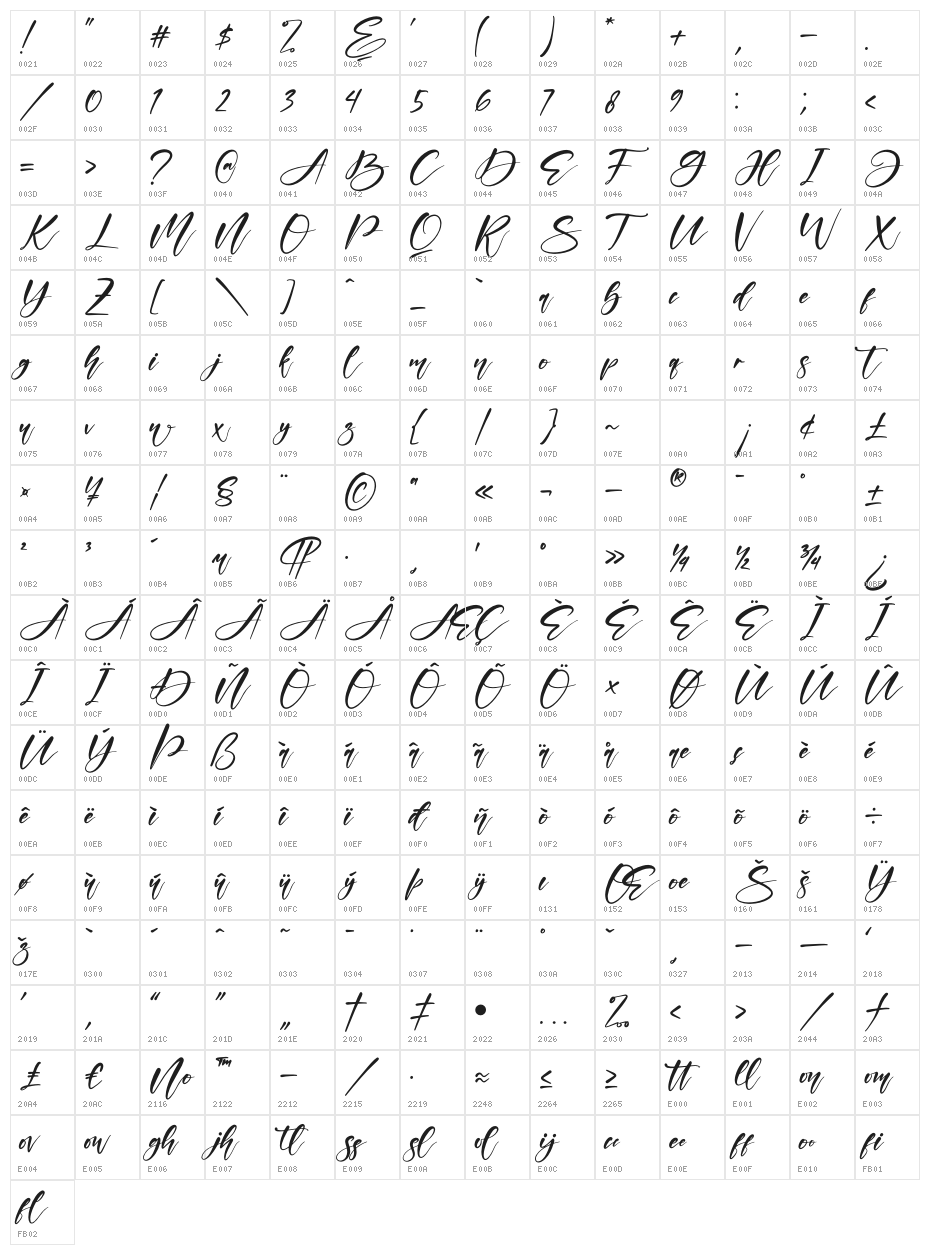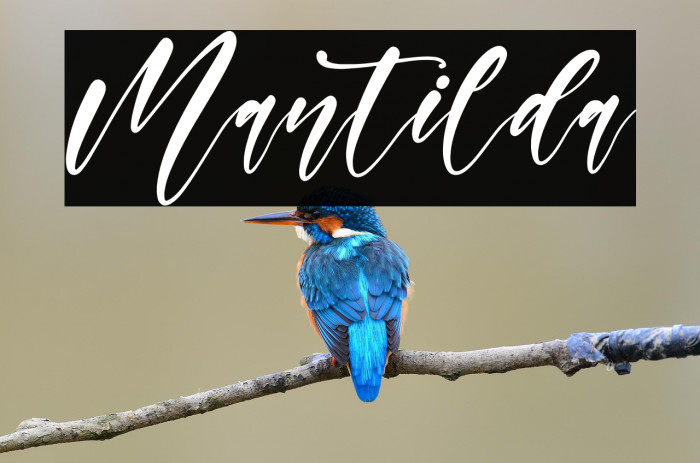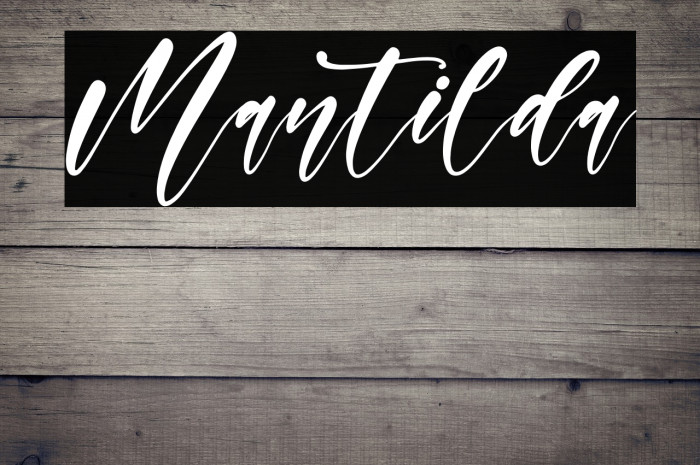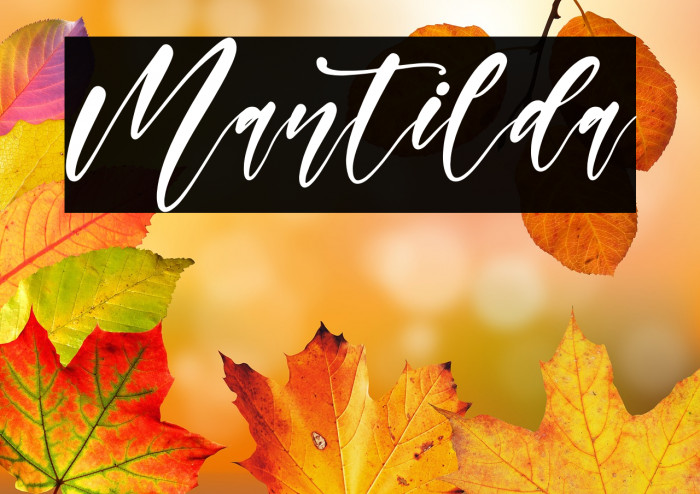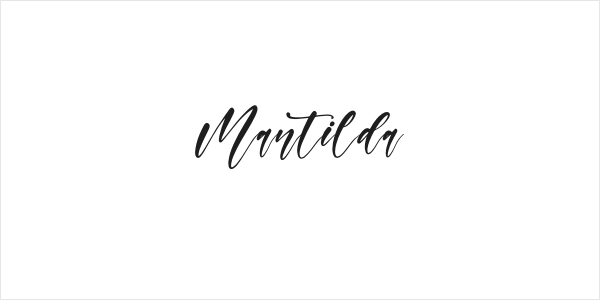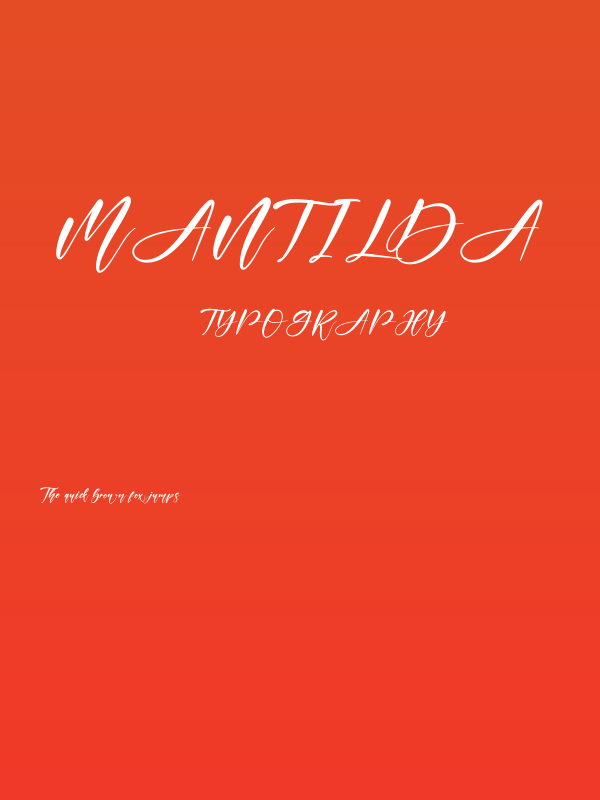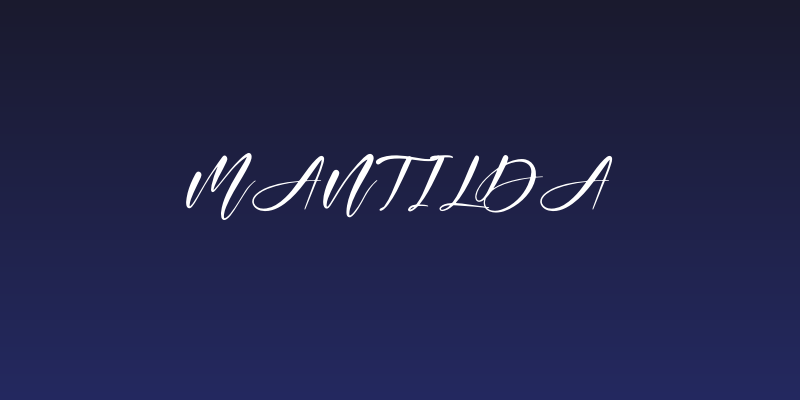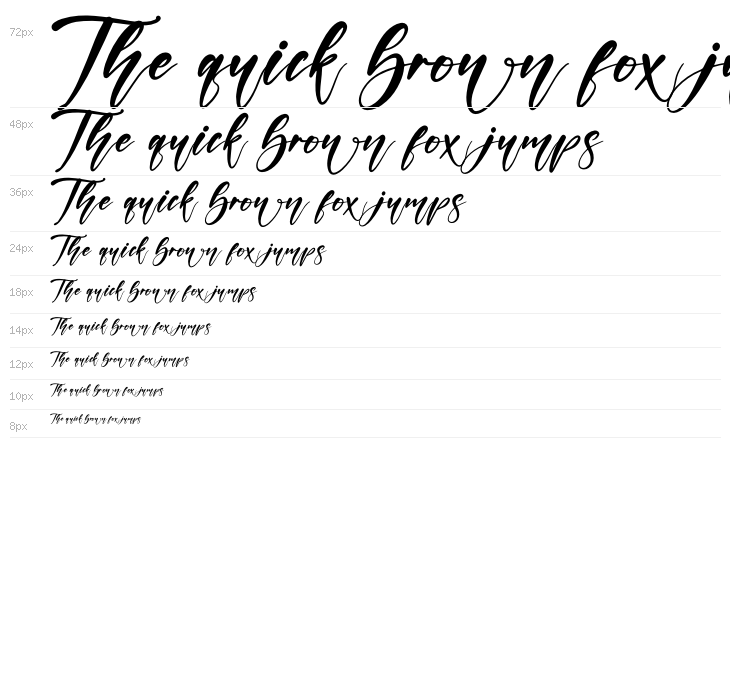
Mantilda Font
Mantilda Description
This font features an elegant and flowing script style, characterized by its smooth, cursive strokes and artistic flair. The uppercase letters exhibit a graceful, sweeping motion, while the lowercase letters maintain a consistent fluidity, creating a harmonious balance. The numerals and special characters are designed with the same attention to detail, ensuring a cohesive appearance across all elements. The font's overall aesthetic is both sophisticated and approachable, making it suitable for a variety of design applications.